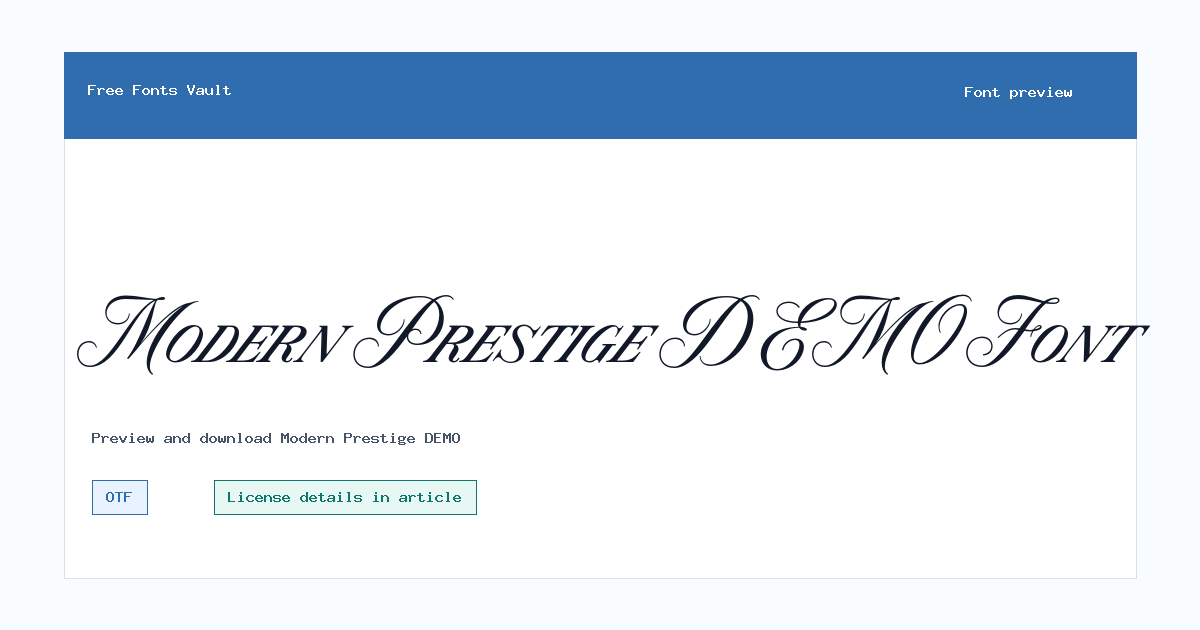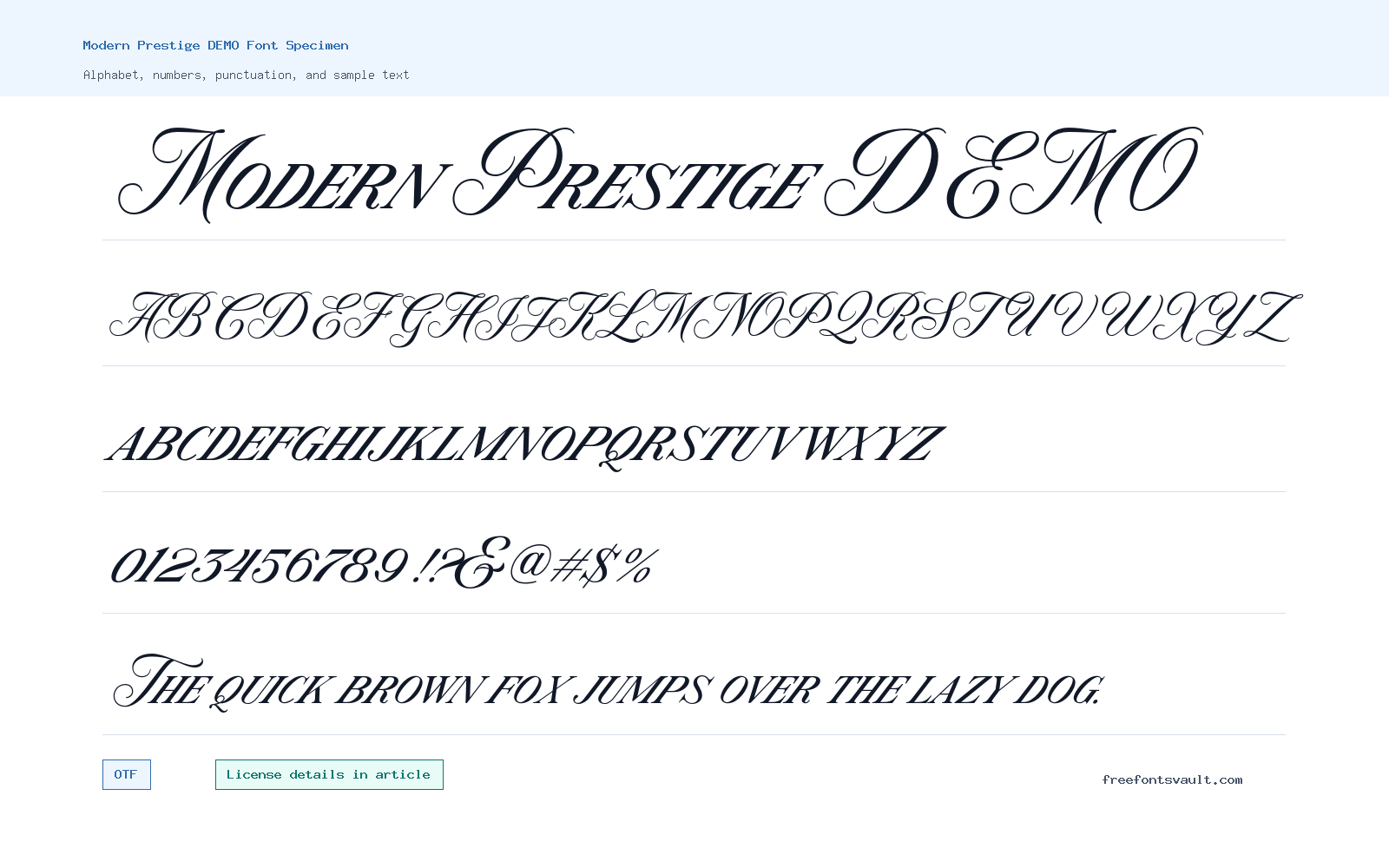
Modern Prestige DEMO
Modern Prestige DEMO font.
Modern Prestige DEMO is an OTF display font credited to Letterhend Studio and Sarid Ezra, made for polished short text previews.
About Modern Prestige DEMO
Modern Prestige DEMO is a display-focused font for layouts that need a refined first impression. It is better suited to short text than to long reading sections. Try it with boutique-style headings, invitation titles, product labels, packaging mockups, social graphics, and logo draft text where the words can stay large and carefully spaced.
- Regular 400 style for stylish short display text.
- Luxury-style headings, boutique branding drafts, and logo concepts.
- Invitations, packaging mockups, product labels, and editorial title treatments.
- Social media graphics with short polished wording.
- Large display text where spacing can be adjusted carefully.
- Pairing with a simpler reading font for descriptions and paragraphs.
Use Modern Prestige DEMO at larger sizes and in short text blocks. Test uppercase, lowercase, punctuation, and numbers in the preview. If the design needs paragraphs or fine print, pair it with a plain, readable font and keep Modern Prestige for the main display line.
What is Modern Prestige DEMO best used for?
It is best for short display text such as headings, logo drafts, invitations, labels, packaging mockups, and stylish social graphics.
Should I use Modern Prestige DEMO for body text?
It is better for short display use. For paragraphs, pair it with a simpler font that is easier to read at small sizes.